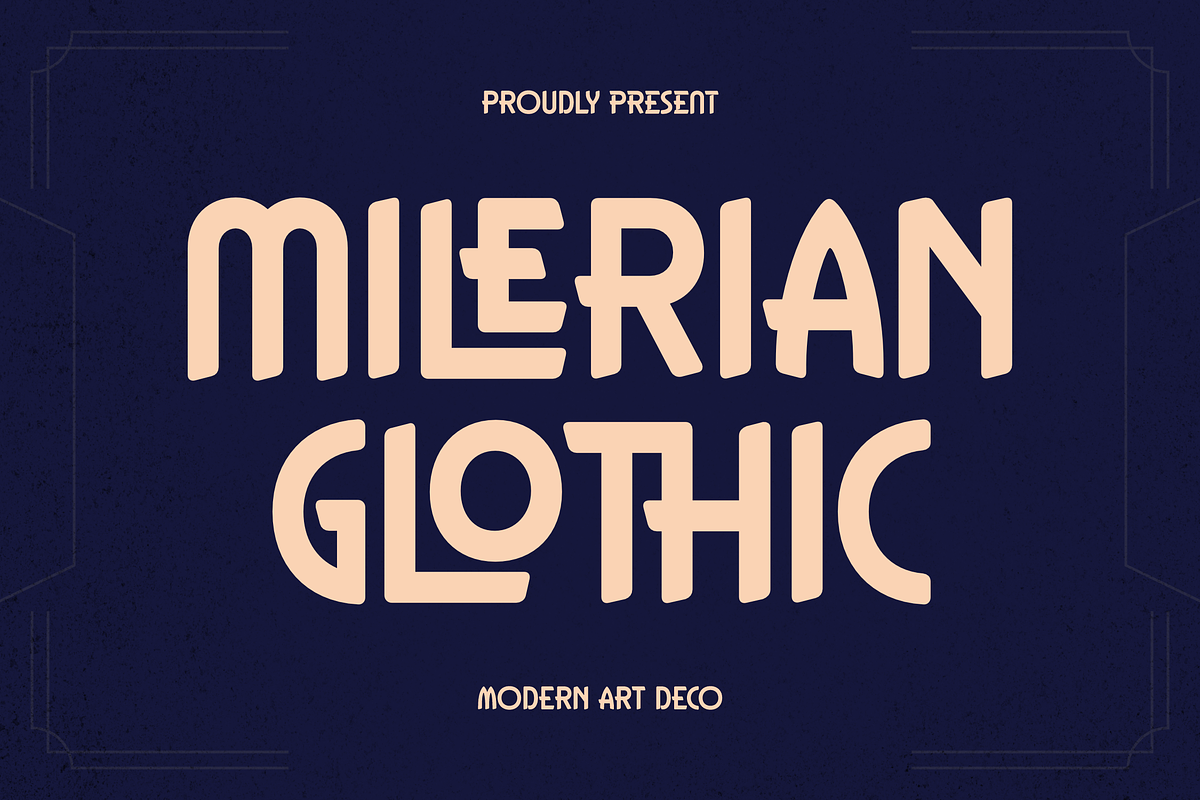
The Milerian Glothic Modern Art Deco Font Free Download is a stylish and bold typeface inspired by the luxurious and sleek aesthetic of the Art Deco era. Featuring geometric letterforms with sharp lines and sophisticated details, this font is perfect for creating high-end logos, branding, invitations, posters, and more. Whether you're designing for a modern brand, upscale event, or artistic project, Milerian Glothic adds a timeless, elegant flair to your work.
Milerian Glothic Modern Art Deco Font Free Download is ideal for designers looking to add a touch of vintage luxury and sophistication to their typography. Perfect for upscale branding, vintage-inspired designs, or art deco-themed projects, this font will make your work stand out with its sleek, refined style. Download it today and bring the elegance of Art Deco to your creative projects!